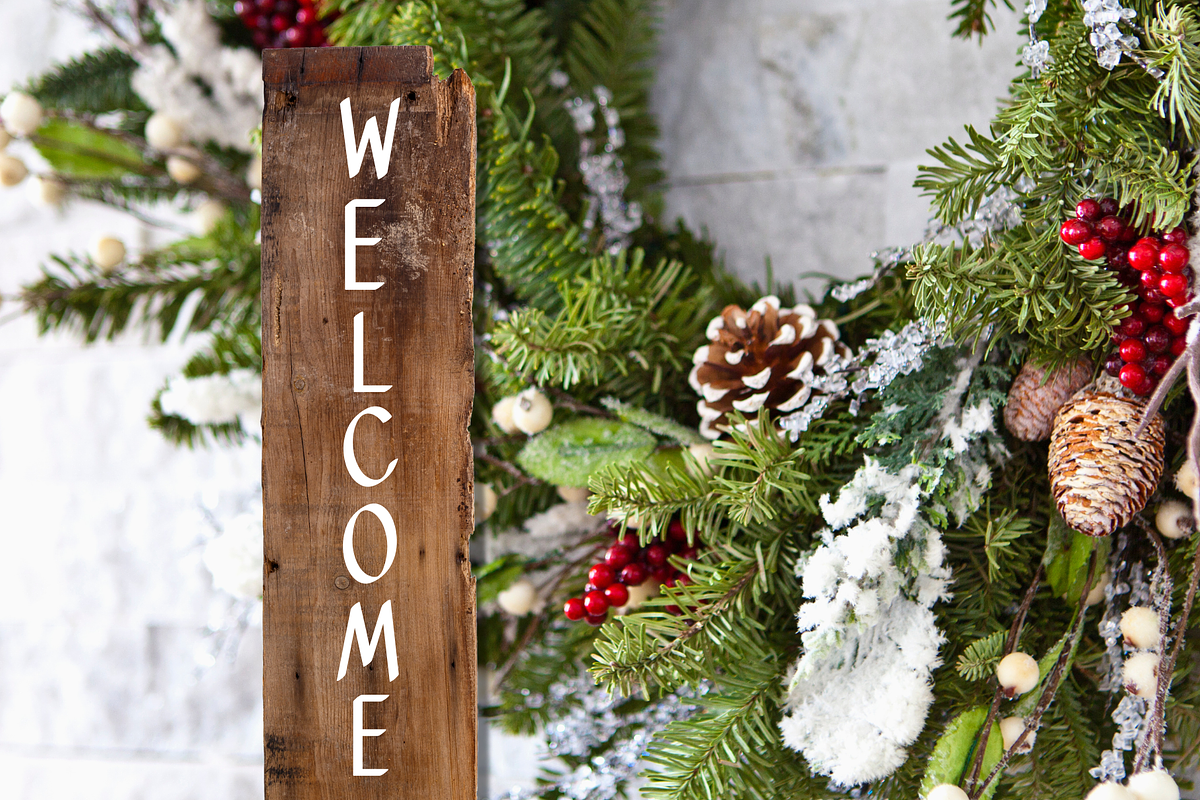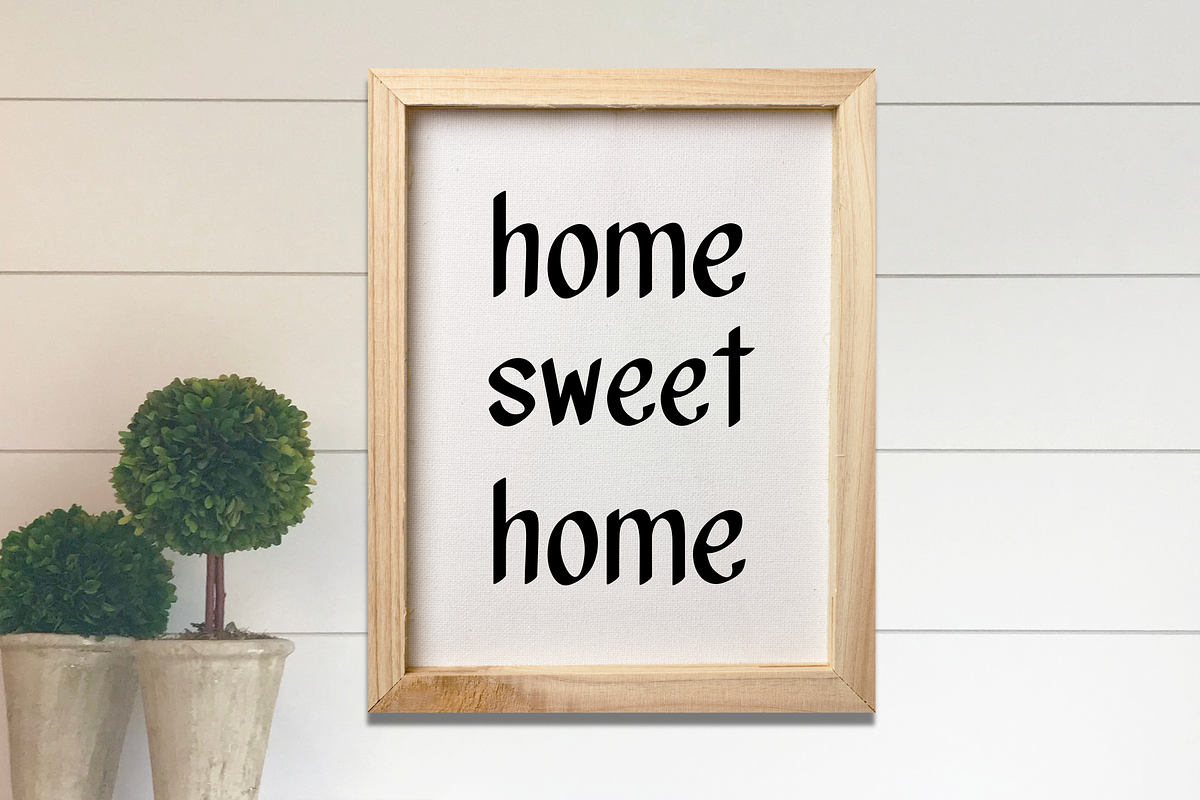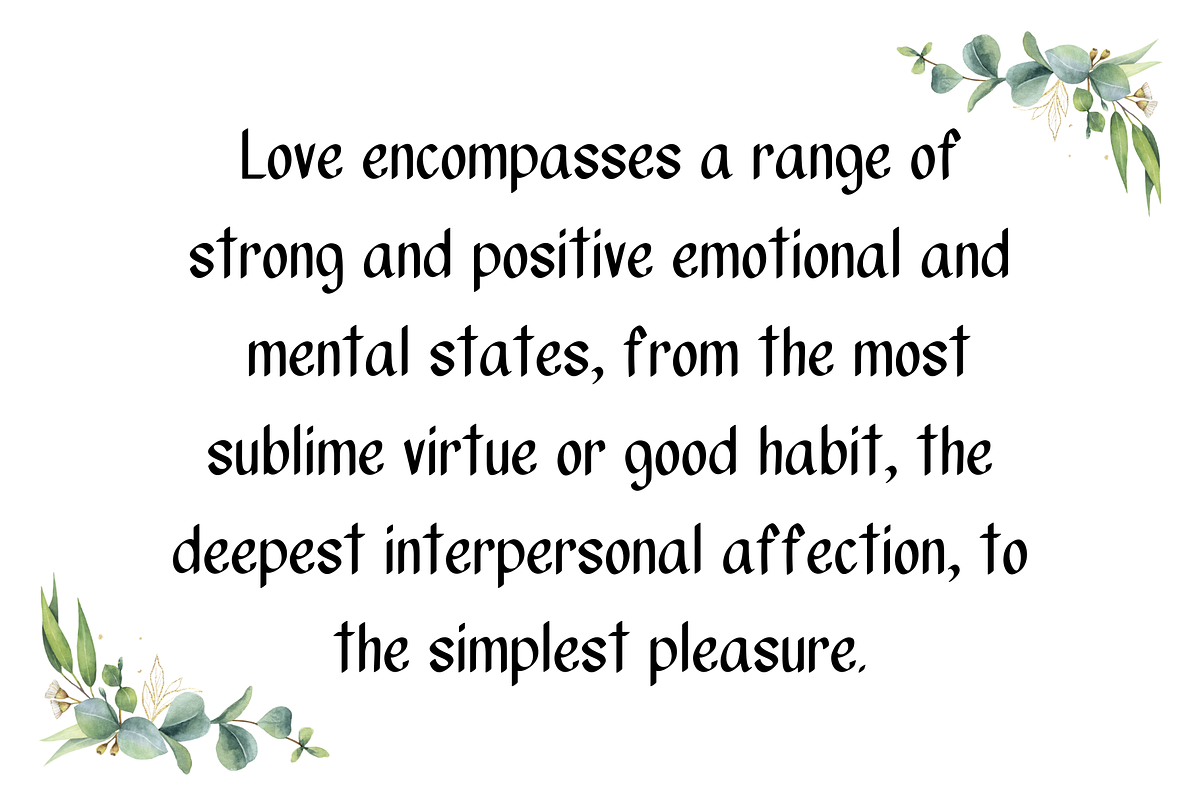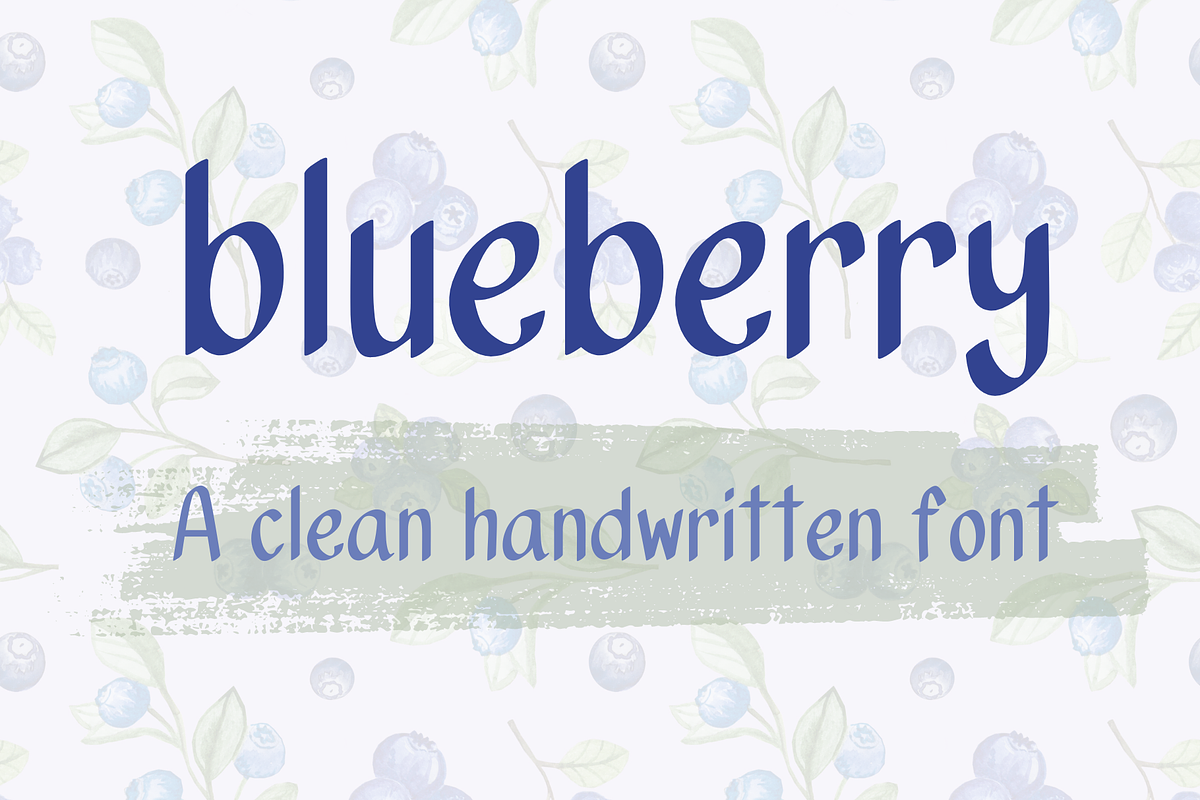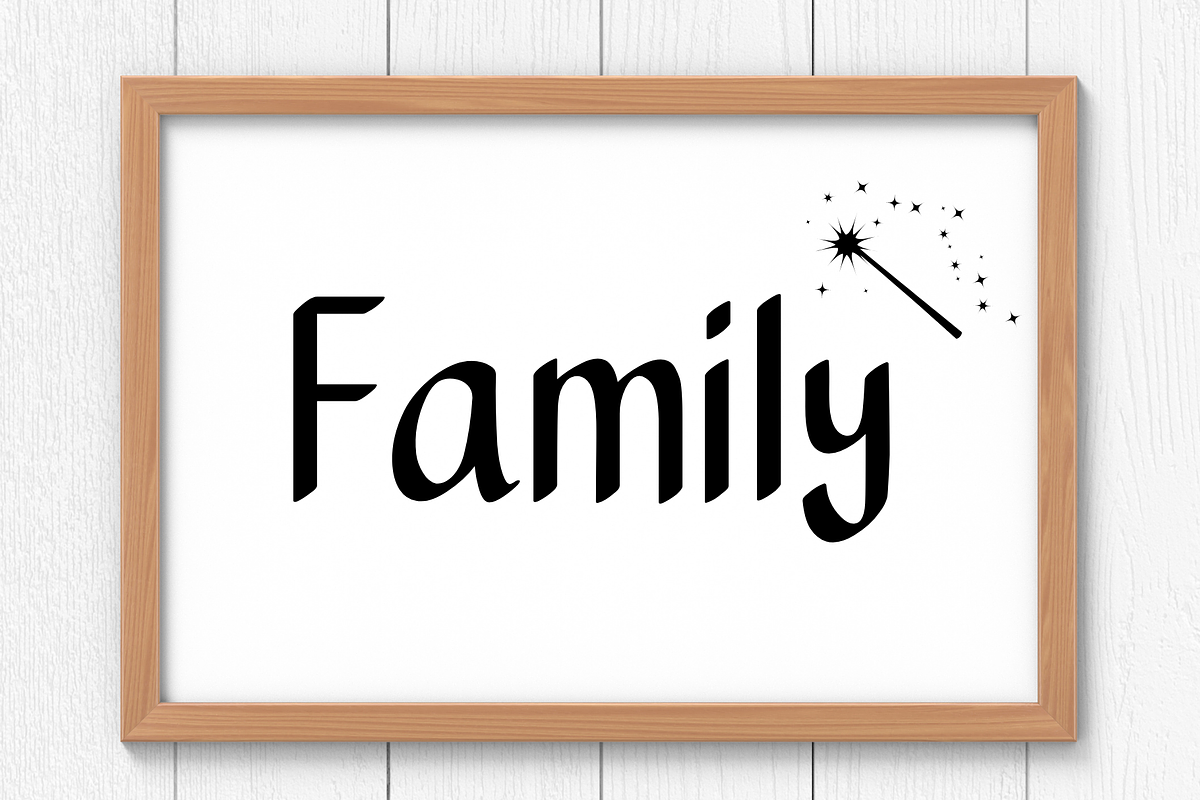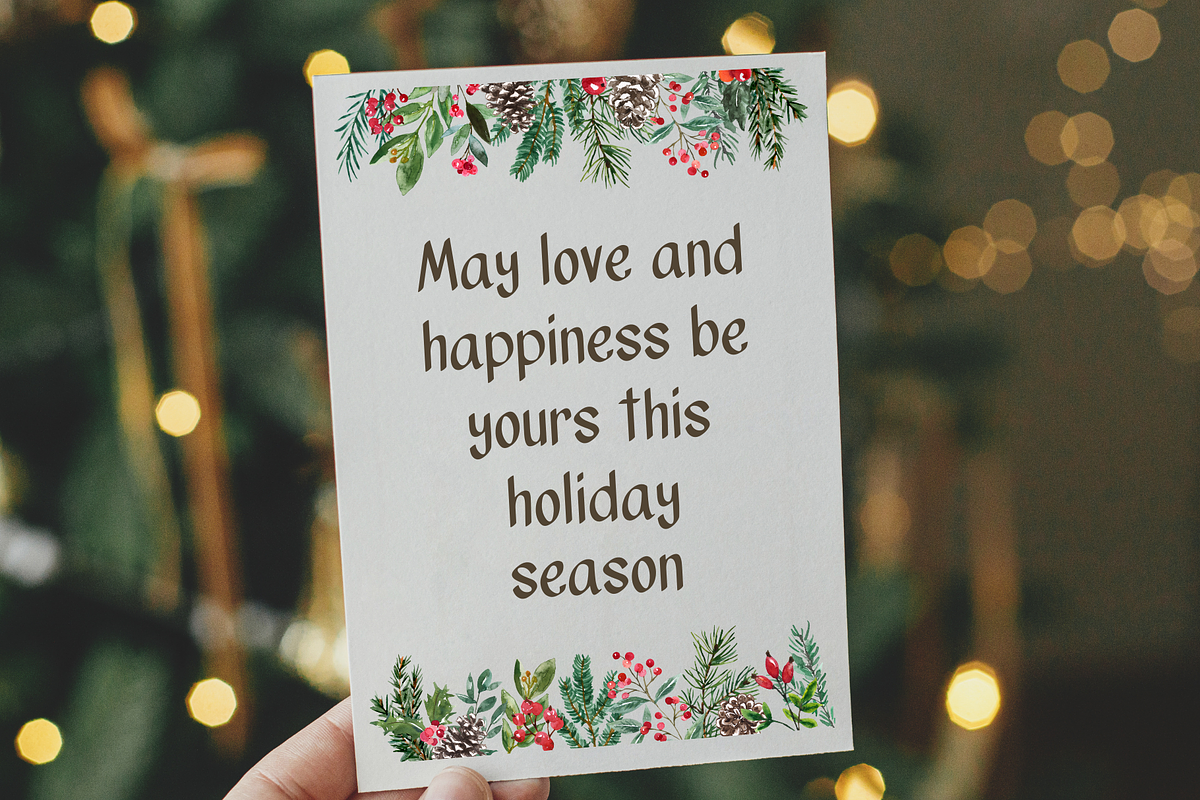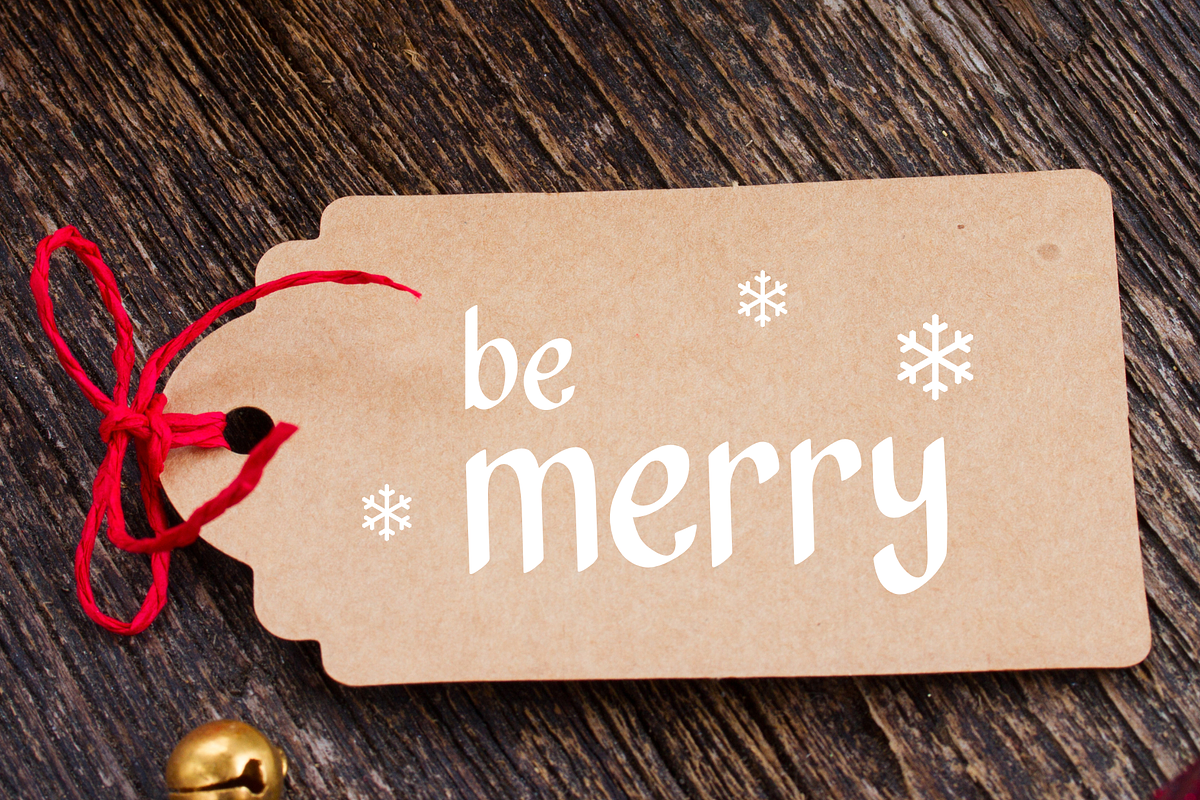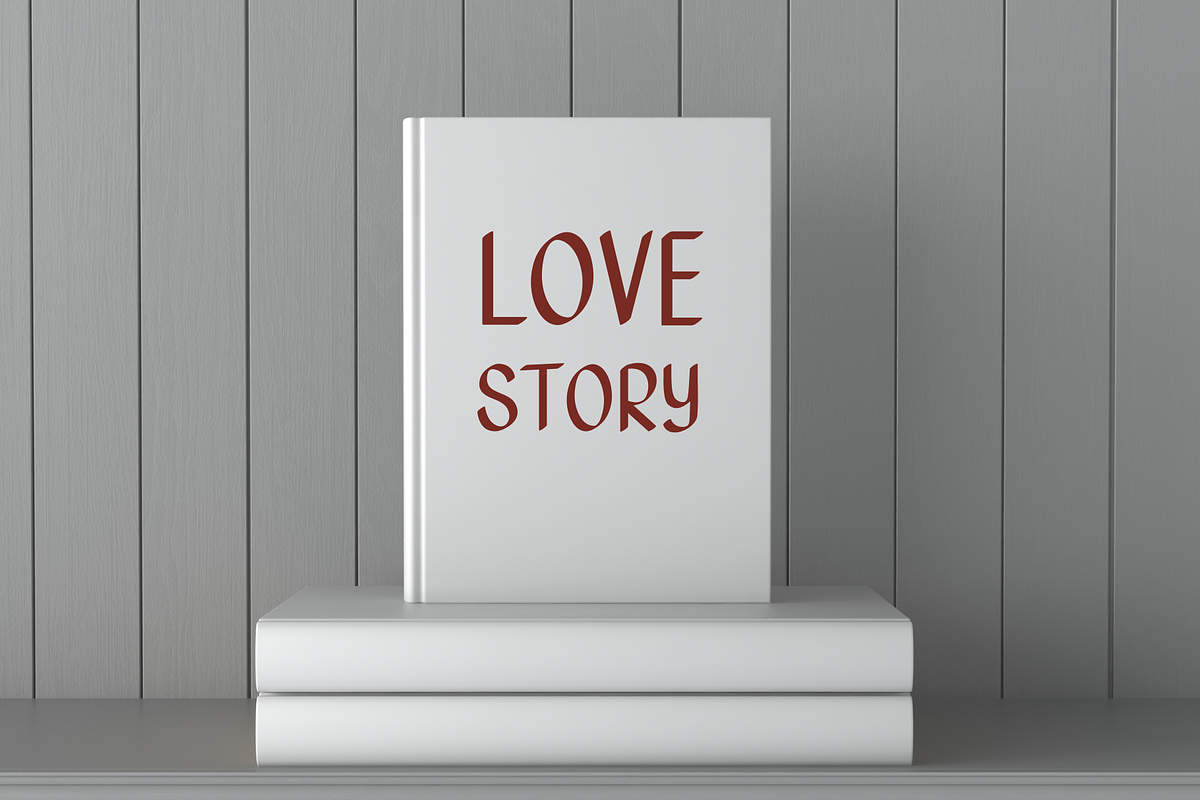
Blueberry Clean Handwritten Font
Blueberry is a handwritten font that is clean, elegant , simple and neat . It is good for digital prints, quotes for facebook and Instagram, planner, journal, digital note and any occasion presentation.